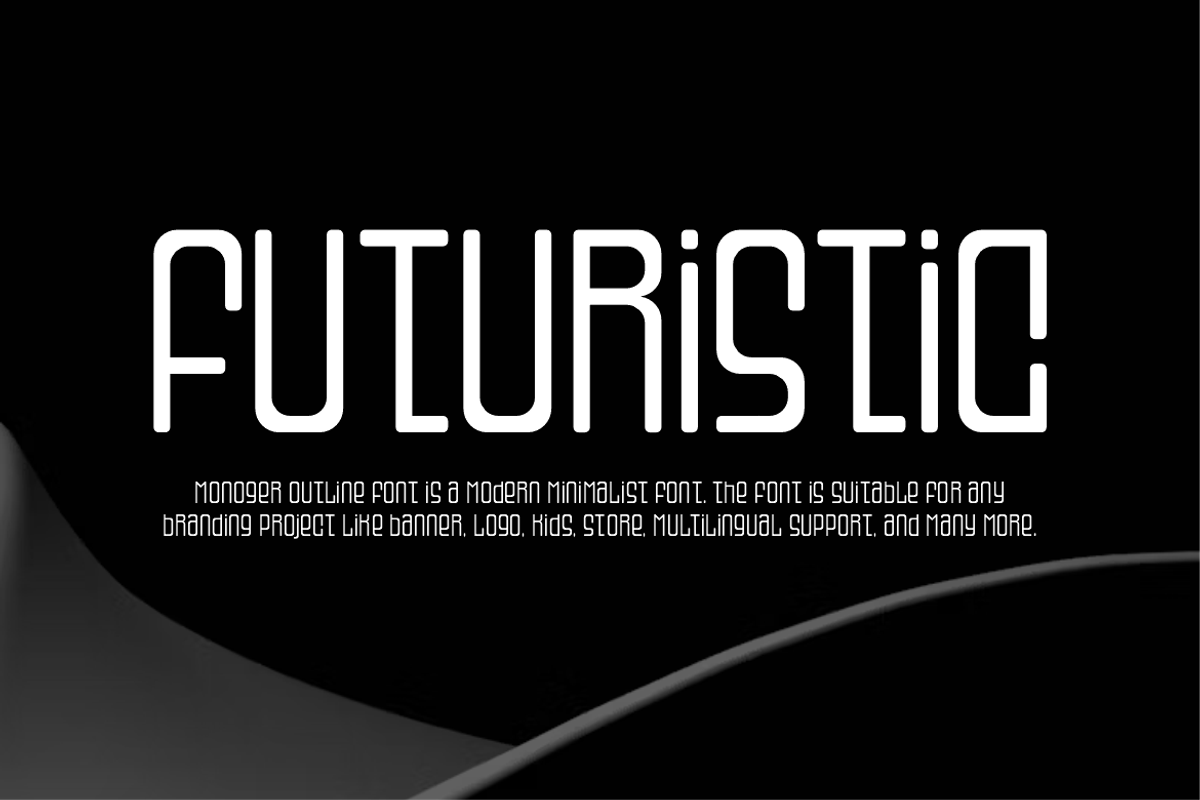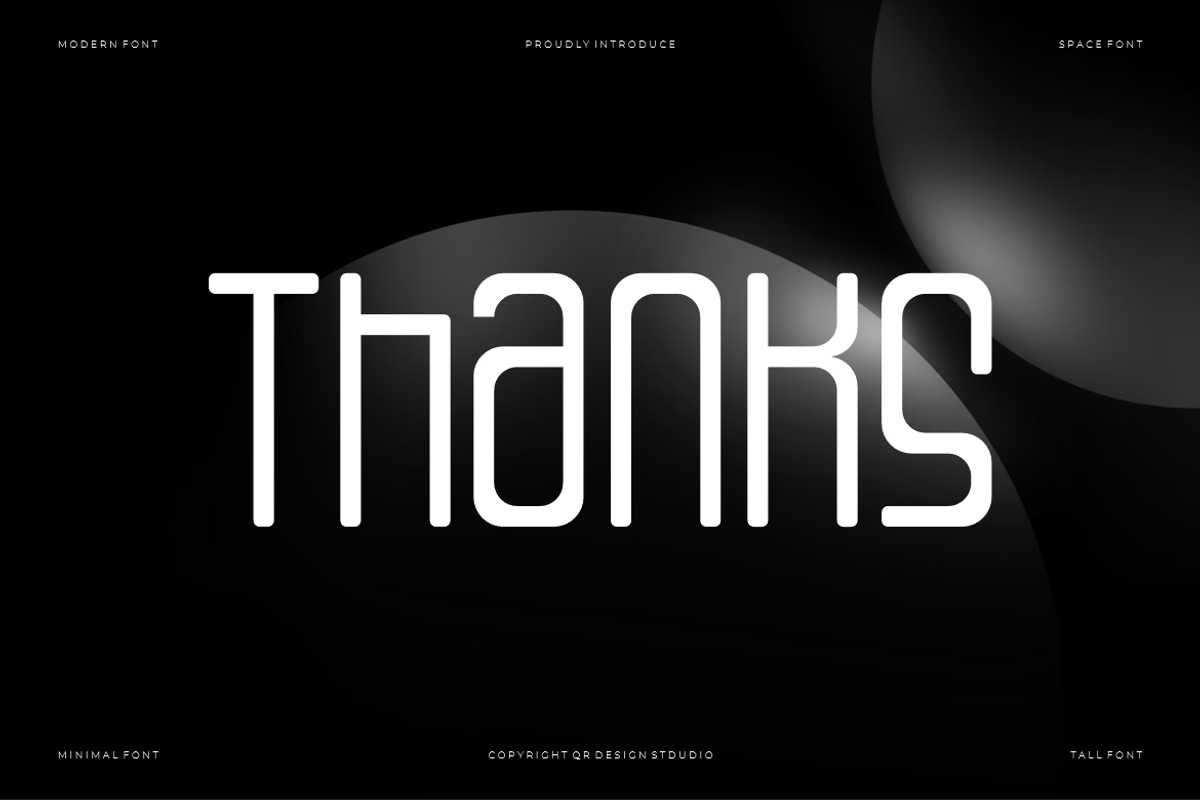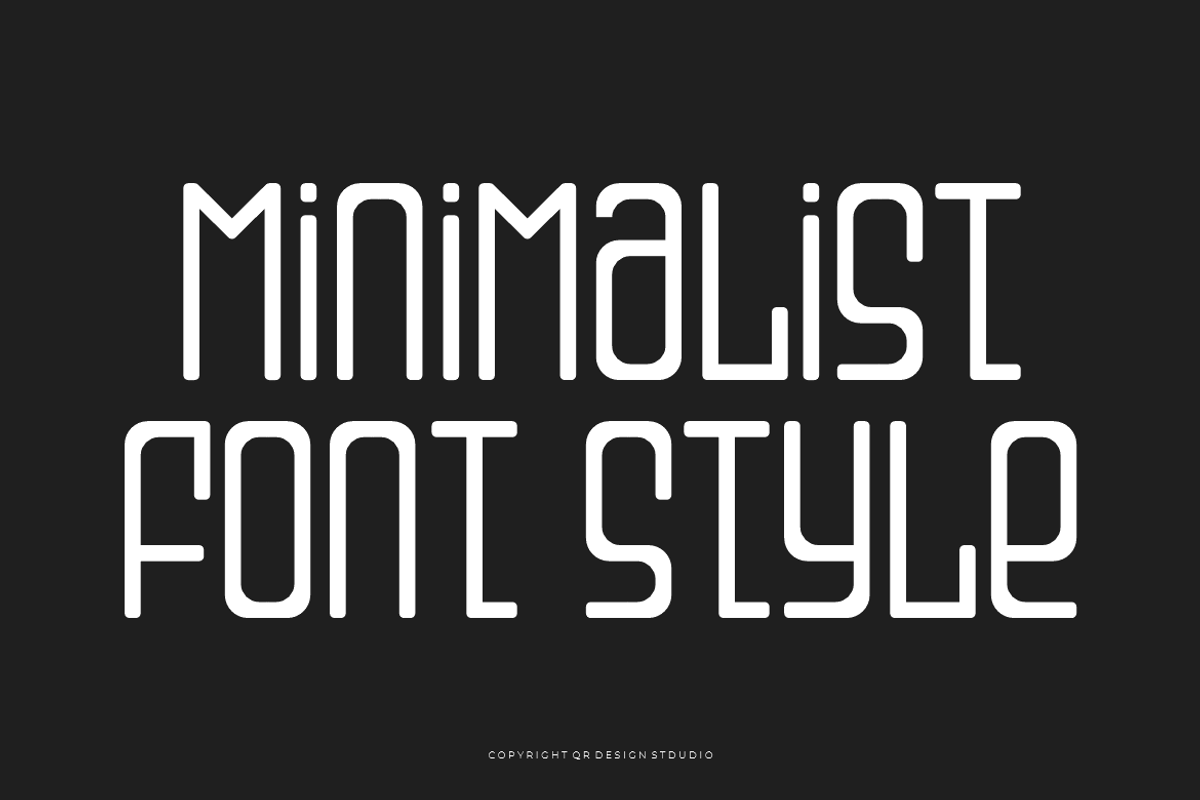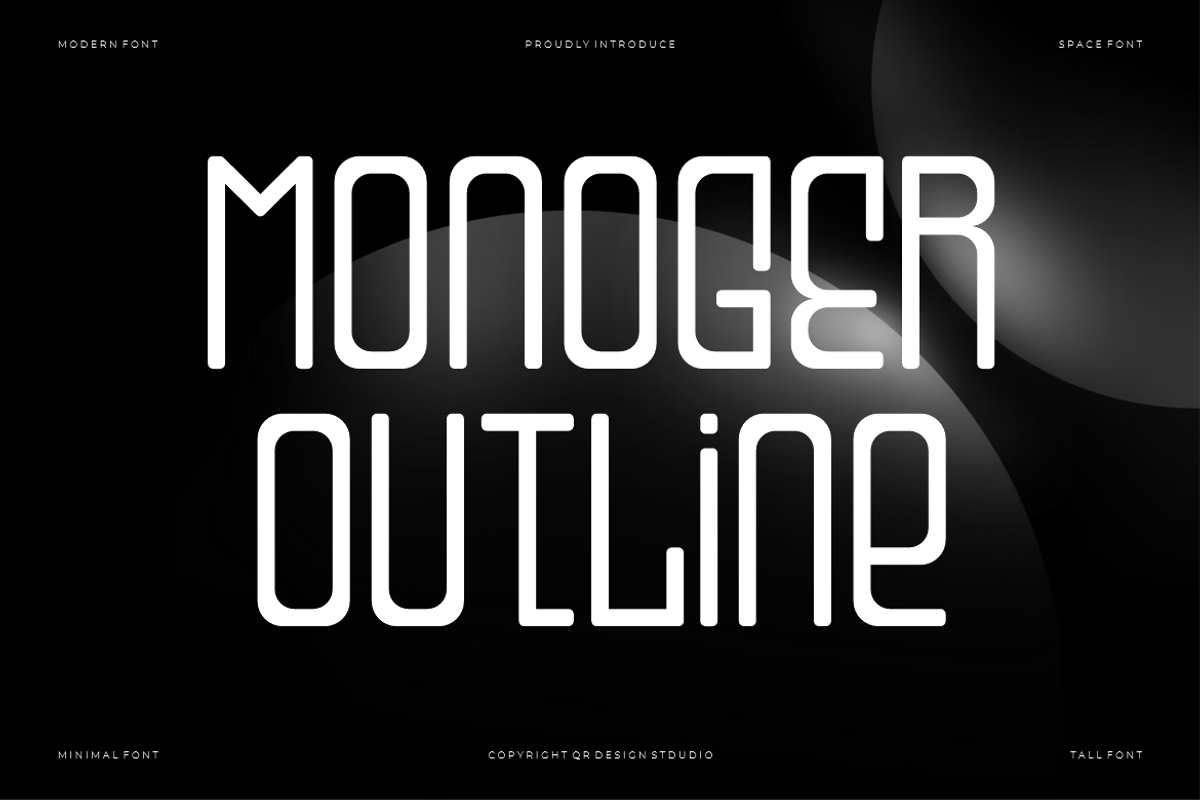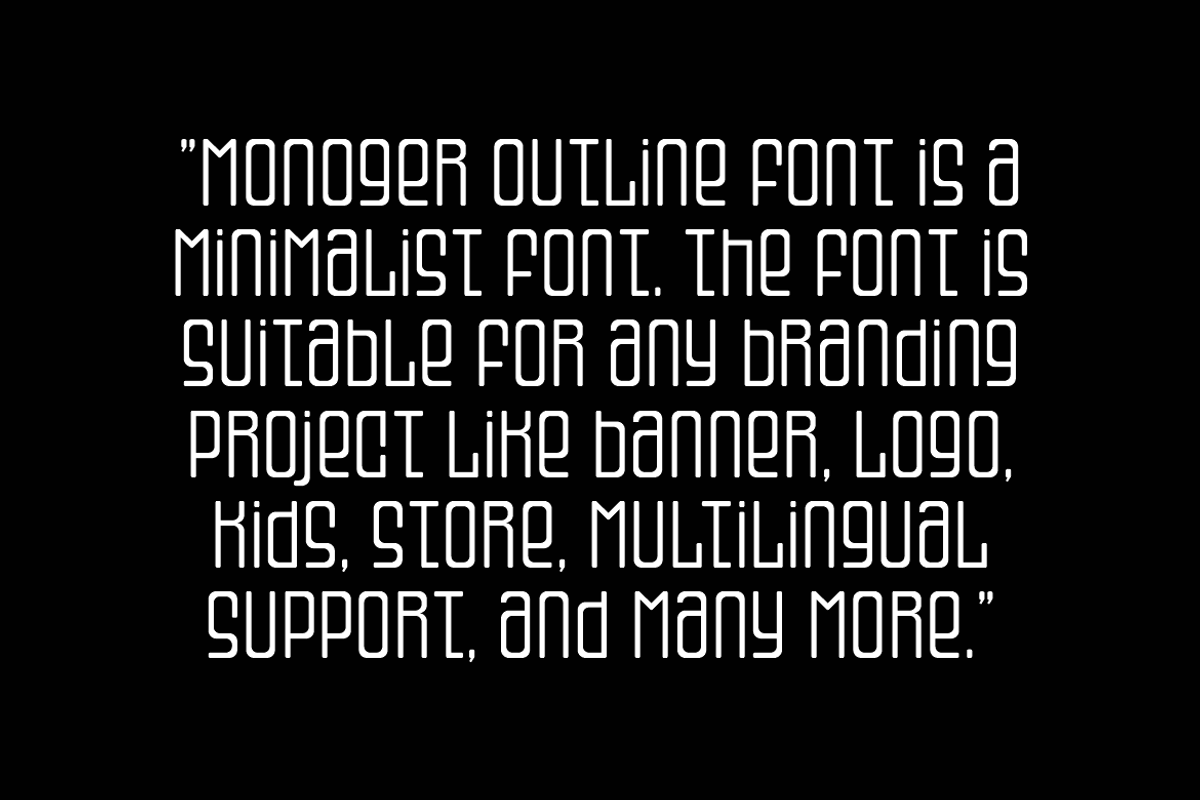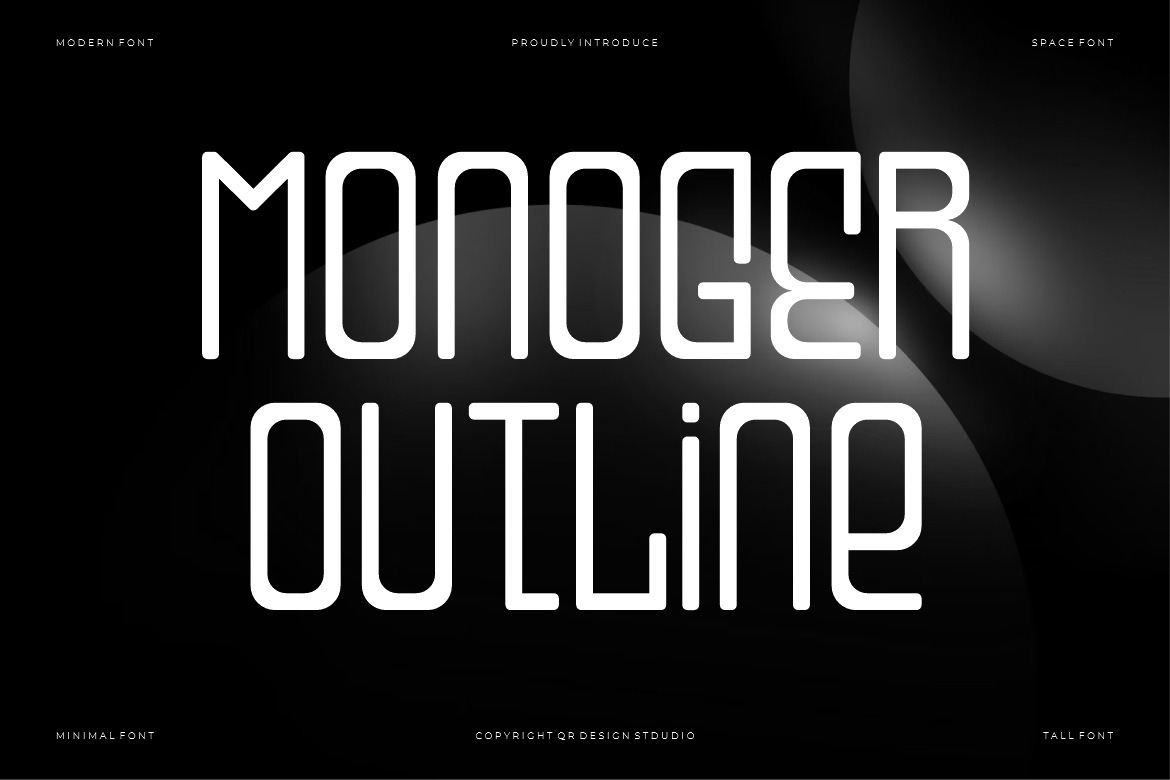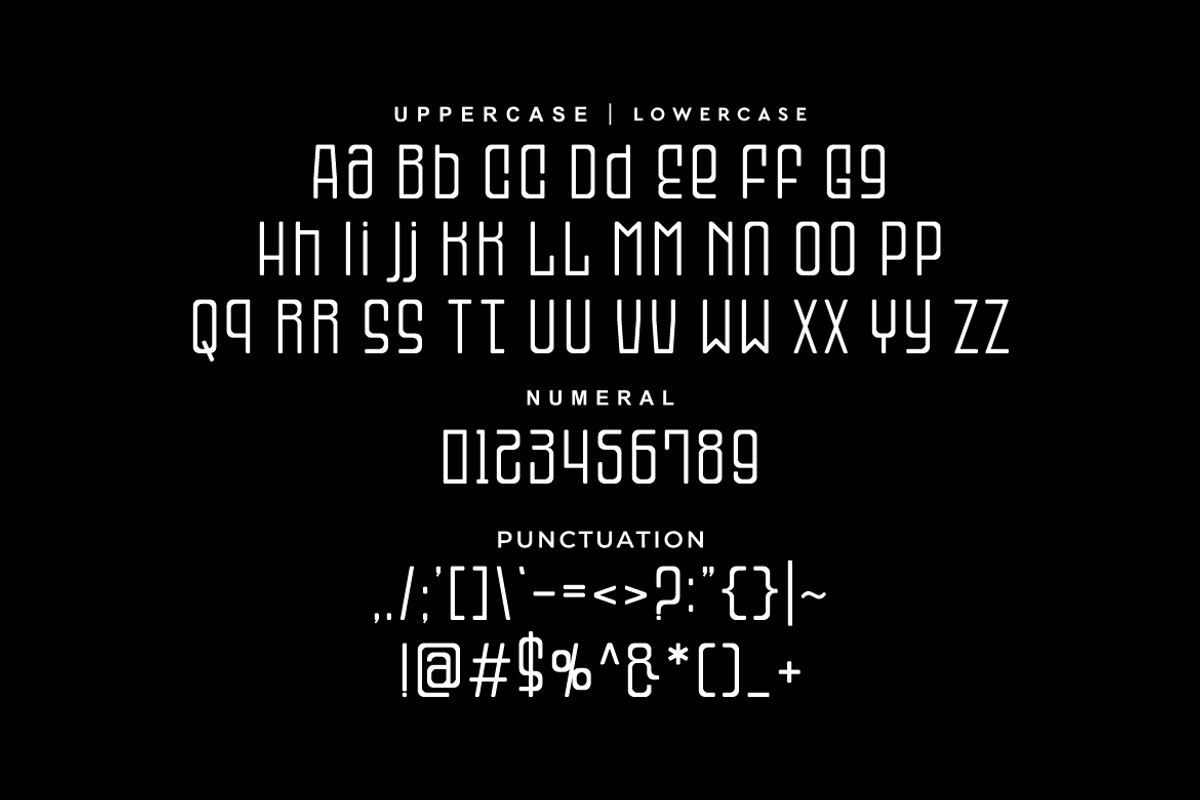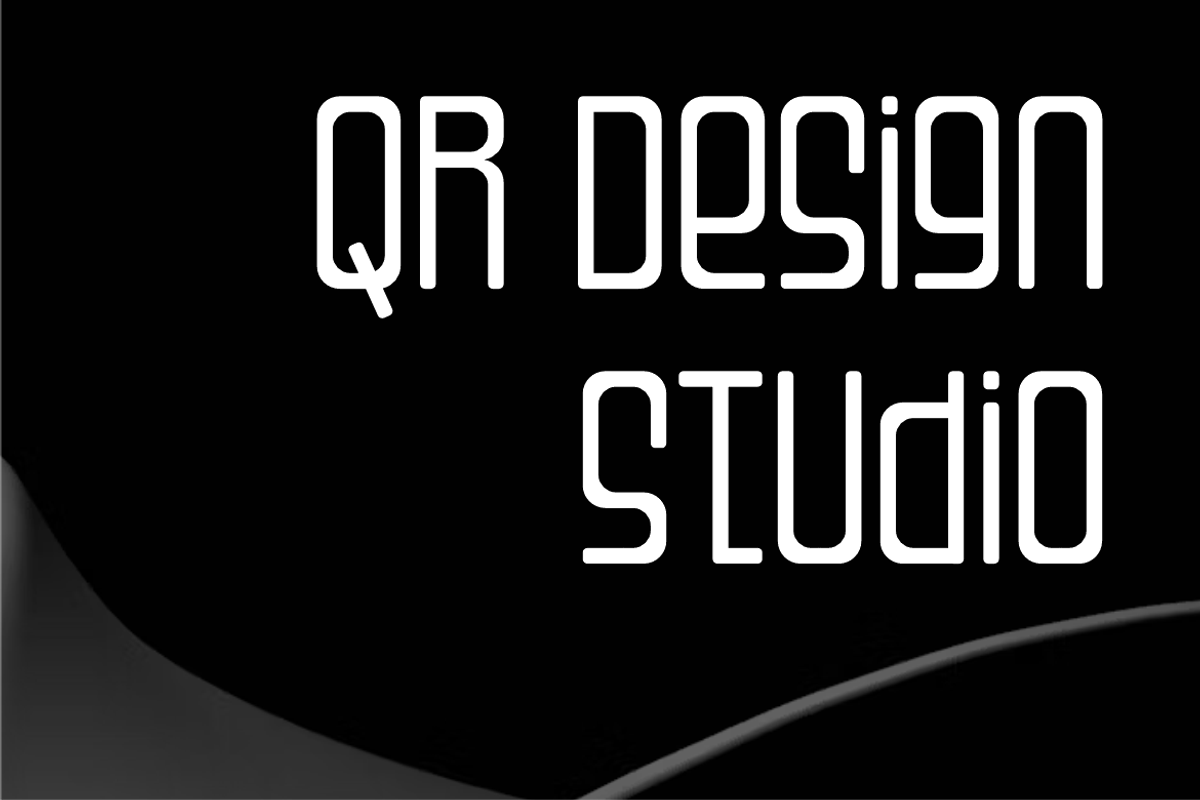
Monoger Outline - Monoline Font
Monoger Outline Font is a minimal and authentic display font. The font is suitable for any branding project like poster, logo, sport, and many more. Outstanding in a wide range of contexts.